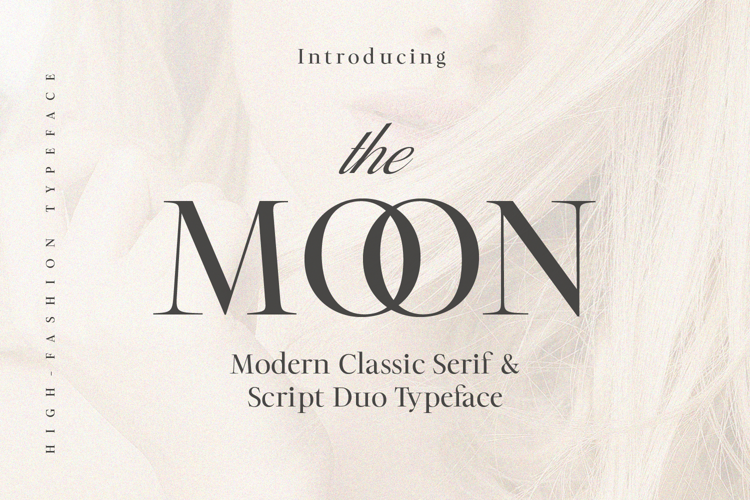
The MOON Modern & Classic Serif
Introducing The MOON — A Modern & Classic Font Duo.
The MOON combines timeless serif elegance with a romantic script flair. Designed for designers and creatives seeking refined, high-fashion aesthetics, The MOON is perfect for branding, wedding invitations, editorial design, packaging, and more.
This font duo includes:
• A classic serif with full uppercase & lowercase alternates
• A matching calligraphic script with smooth ligatures
• Elegant numerals & punctuation
Beautiful stylistic sets
Whether you're creating a logo for a luxury brand or designing a chic wedding suite, The MOON will elevate your typography with class and beauty.
• Uppercase & lowercase
• Full A–Z alternates
• Script ligatures
• Stylistic sets
✦ Perfect For:
• Editorial layouts
• Fashion branding
• Luxury packaging
• Wedding stationery
• Logo & visual identity
• Social media templates
• Elegant website headers